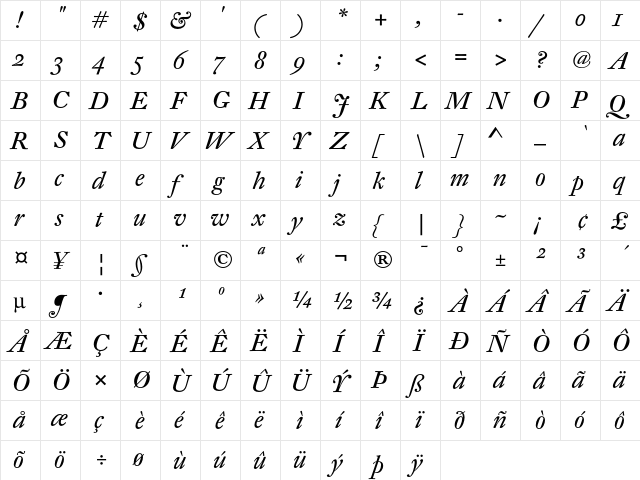
DTL Fleischmann ST Italic Font Preview
DTL Fleischmann ST Italic
Design Context for DTL Fleischmann Typeface
DTL Fleischmann is a composed and adaptable typeface that performs quietly and consistently across a wide range of design contexts. The dynamic lean of this cut emphasises speed and emphasis in any layout.